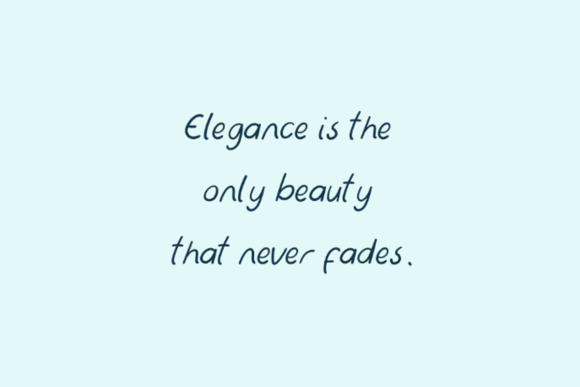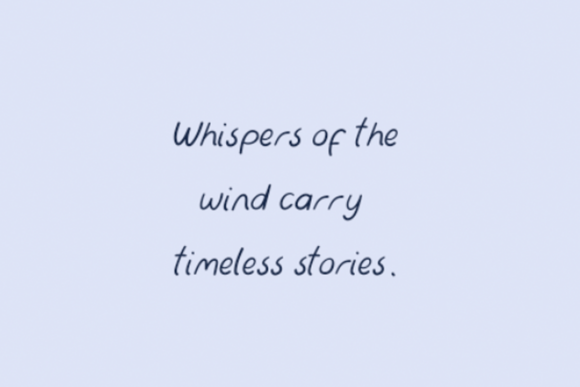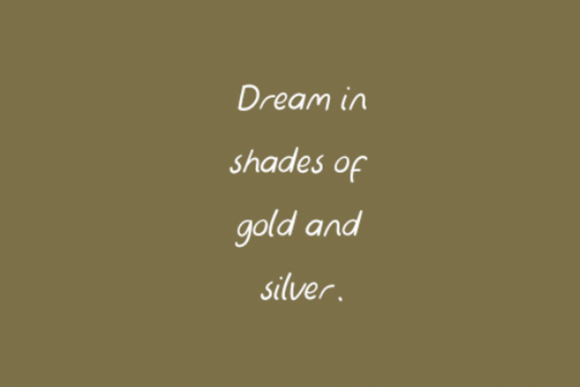
Introduction to Klaude Font
Have you ever stared at a blank page, waiting for the perfect words to flow? For designers, this moment is often a catalyst for creativity, and the right font can make all the difference. That’s where the Klaude Font comes in – a game-changing typeface that effortlessly combines the elegance of academic typography with the personal touch of handwritten script.
Whether you’re working on a high-quality creative project or simply seeking a design resource to elevate your text, Klaude Font is an exceptional choice. Its transparent background and free download make it an accessible addition to any design toolkit. With its refined aesthetic and poetic flow, this imaginative typeface is sure to captivate audiences and add a touch of sophistication to any project.
Key Features of Klaude Font
- High-quality, free font for creative projects: Klaude Font is a unique and versatile font that is perfect for designers and artists working on various projects.
- Transparent background: This font features a transparent background, making it ideal for use on images or videos with complex backgrounds.
- High-resolution design resource: With a resolution of 300 DPI, Klaude Font is suitable for use in high-resolution designs, such as print materials and digital displays.
- Unique design characteristics: Klaude Font features a distinctive and modern design aesthetic, making it a valuable addition to any design resource collection.
Honest Review: Klaude Font
As a designer, I’m always on the lookout for high-quality, free design resources to elevate my creative projects. I recently had the chance to try out the Klaude Font, and I’m excited to share my thoughts with you.
- ✨ High-quality design: The Klaude Font is incredibly detailed and has a sophisticated look to it.
- ✨ Wide range of uses: This versatile font is perfect for a variety of creative projects, from branding and logos to digital art and web design.
- ✨ Transparent background: The font’s transparent background makes it easy to use and manipulate in design applications.
- ⚠️ Limited language support: The Klaude Font only includes a limited number of languages, which may be a concern for designers working on international projects.
- ⚠️ No comprehensive documentation: While the font is well-designed, I found it a bit tricky to use without more detailed instructions or tutorials.
Overall, I’m impressed with the Klaude Font’s potential and would definitely recommend it to designers looking for a high-quality, free design resource. With a bit more attention to language support and documentation, this font could be a game-changer for creative projects of all kinds.
Tips for Getting the Most Out of Klaude Font
Use Klaude Font with a transparent background to create a clean and modern design. Experiment with different font sizes and colors to add visual interest to your project. You can also combine Klaude Font with other design elements to create a unique and eye-catching design.
Klaude Font is perfect for creating logos, branding materials, and marketing collateral. You can also use it for presentations, documents, and social media graphics. With its high-quality design and transparent background, Klaude Font is a versatile design resource that can be used in a variety of creative projects.